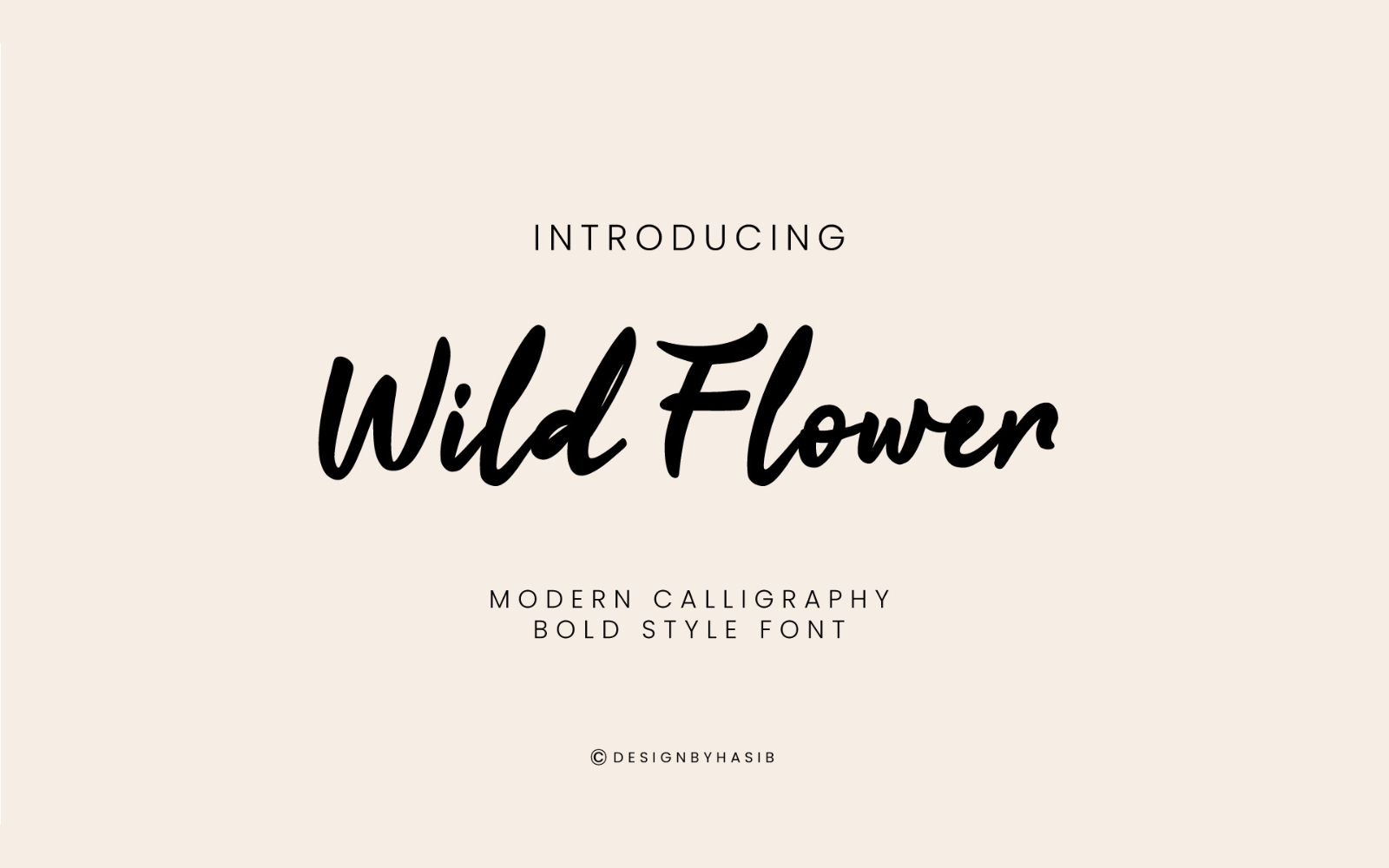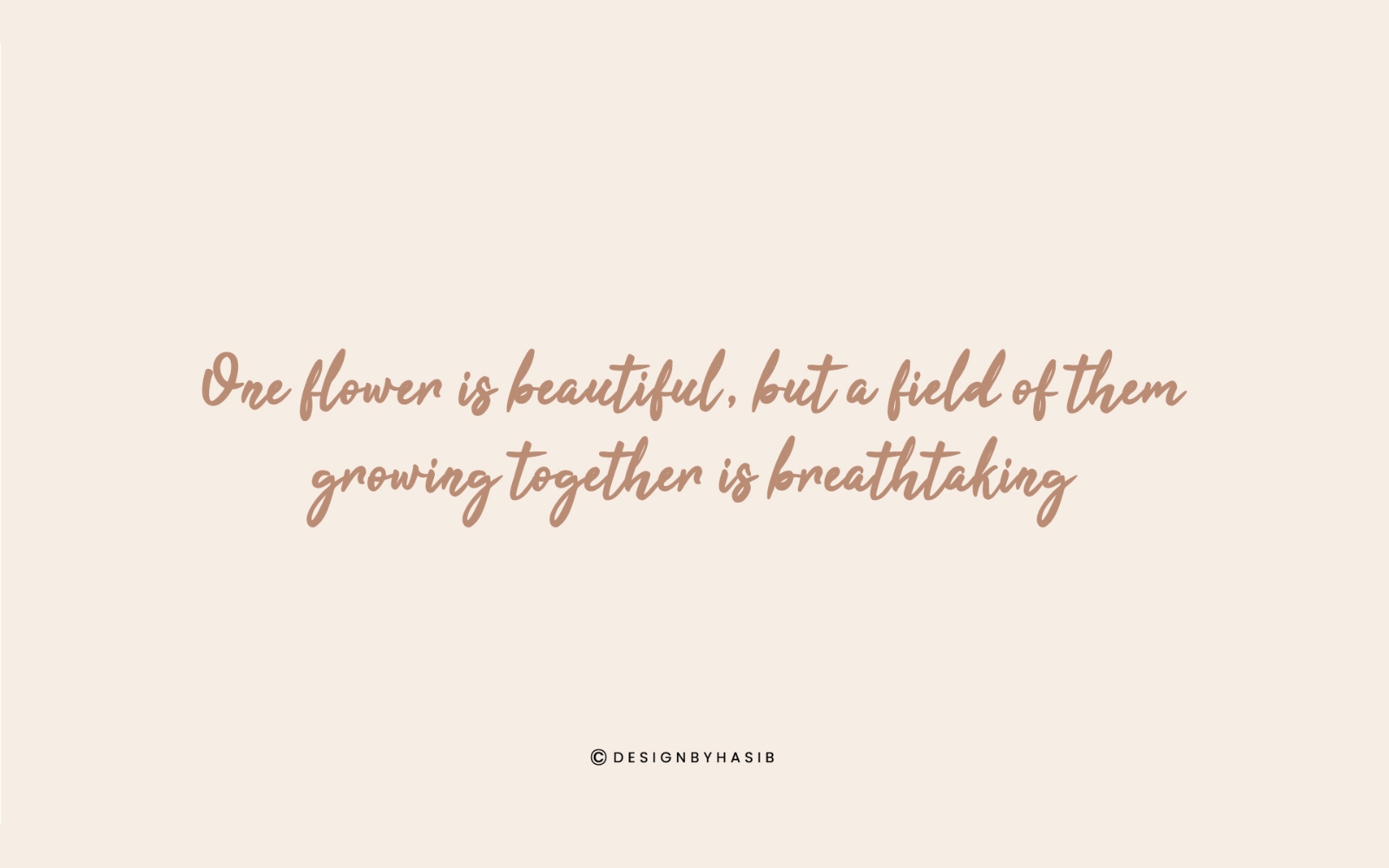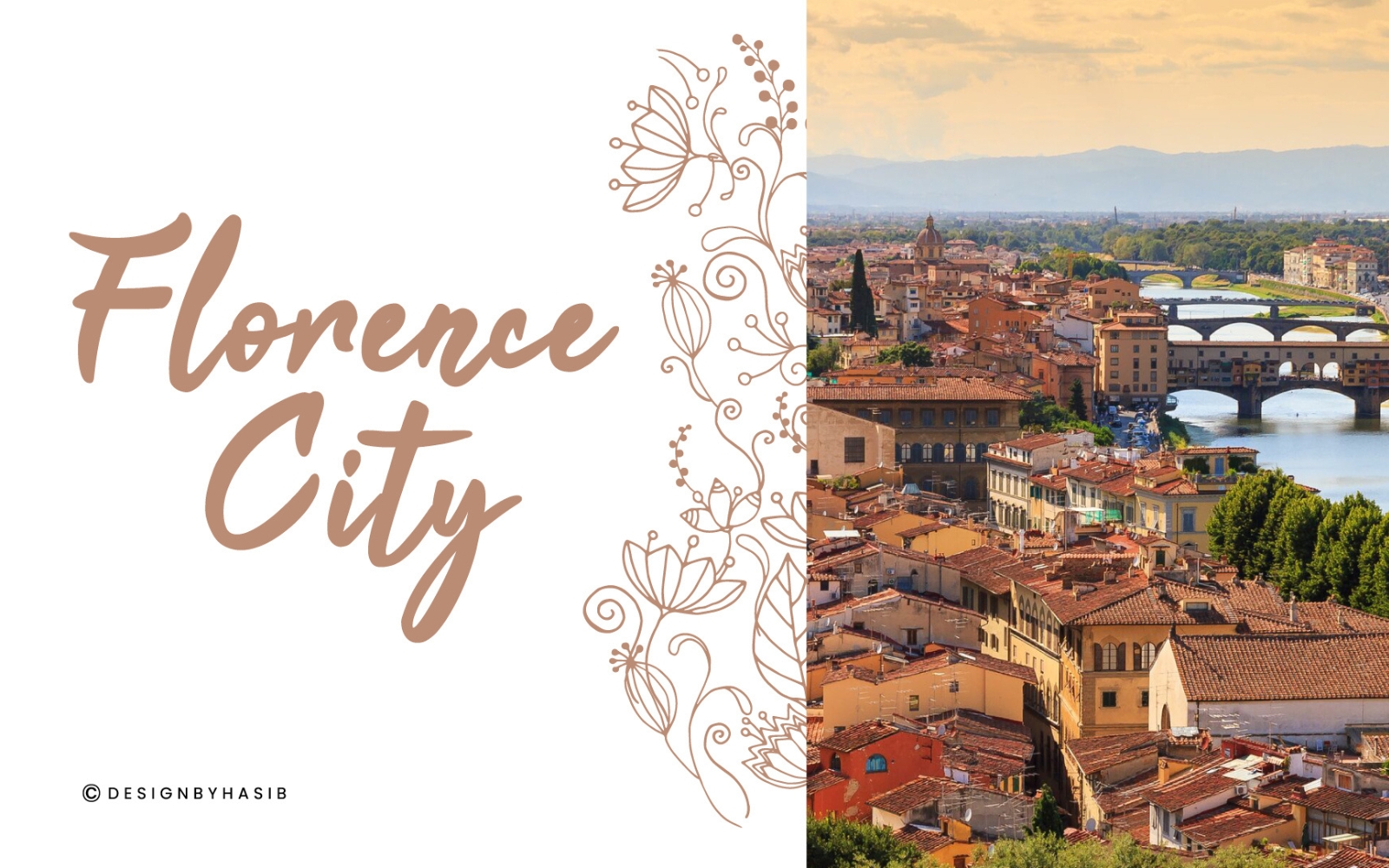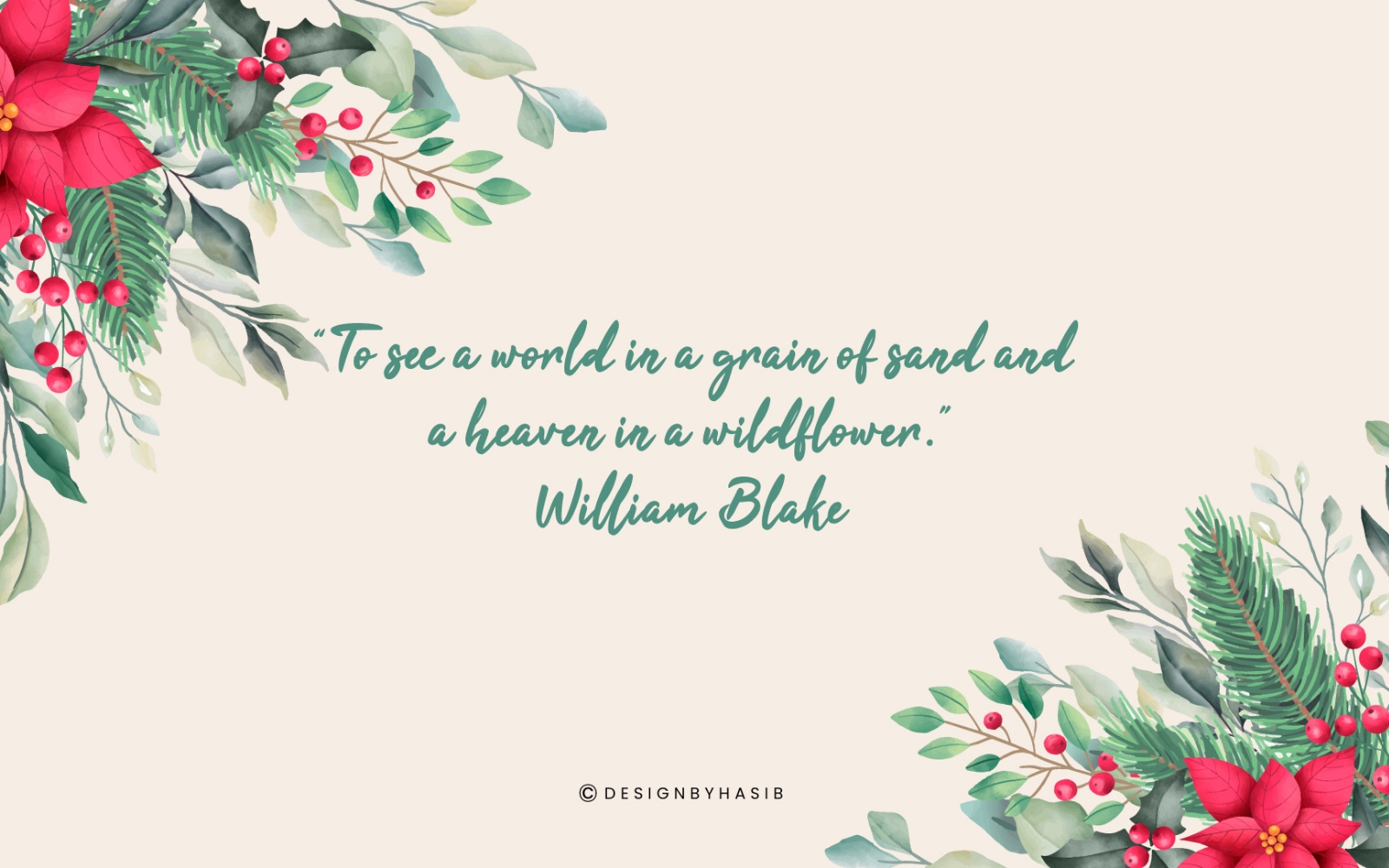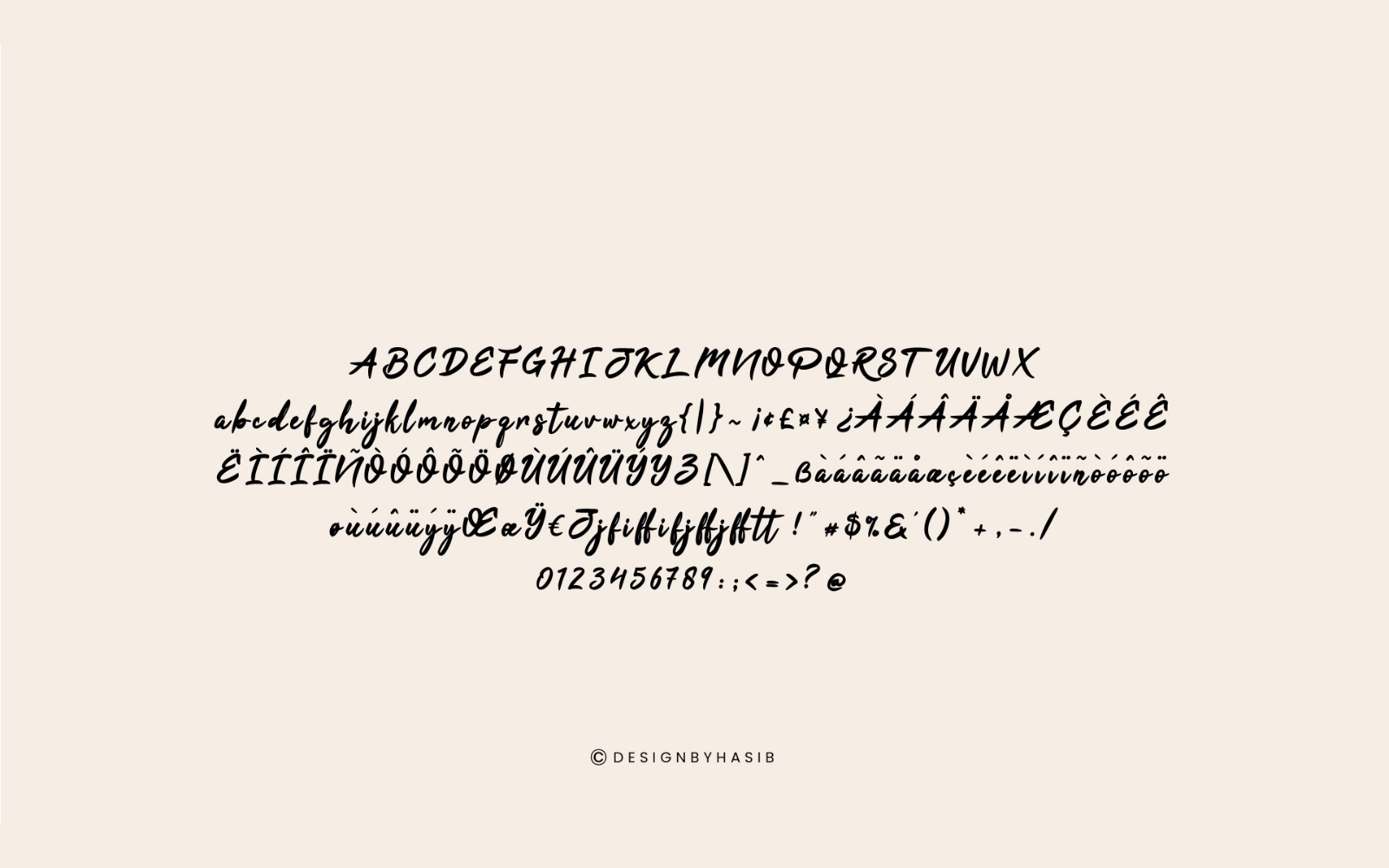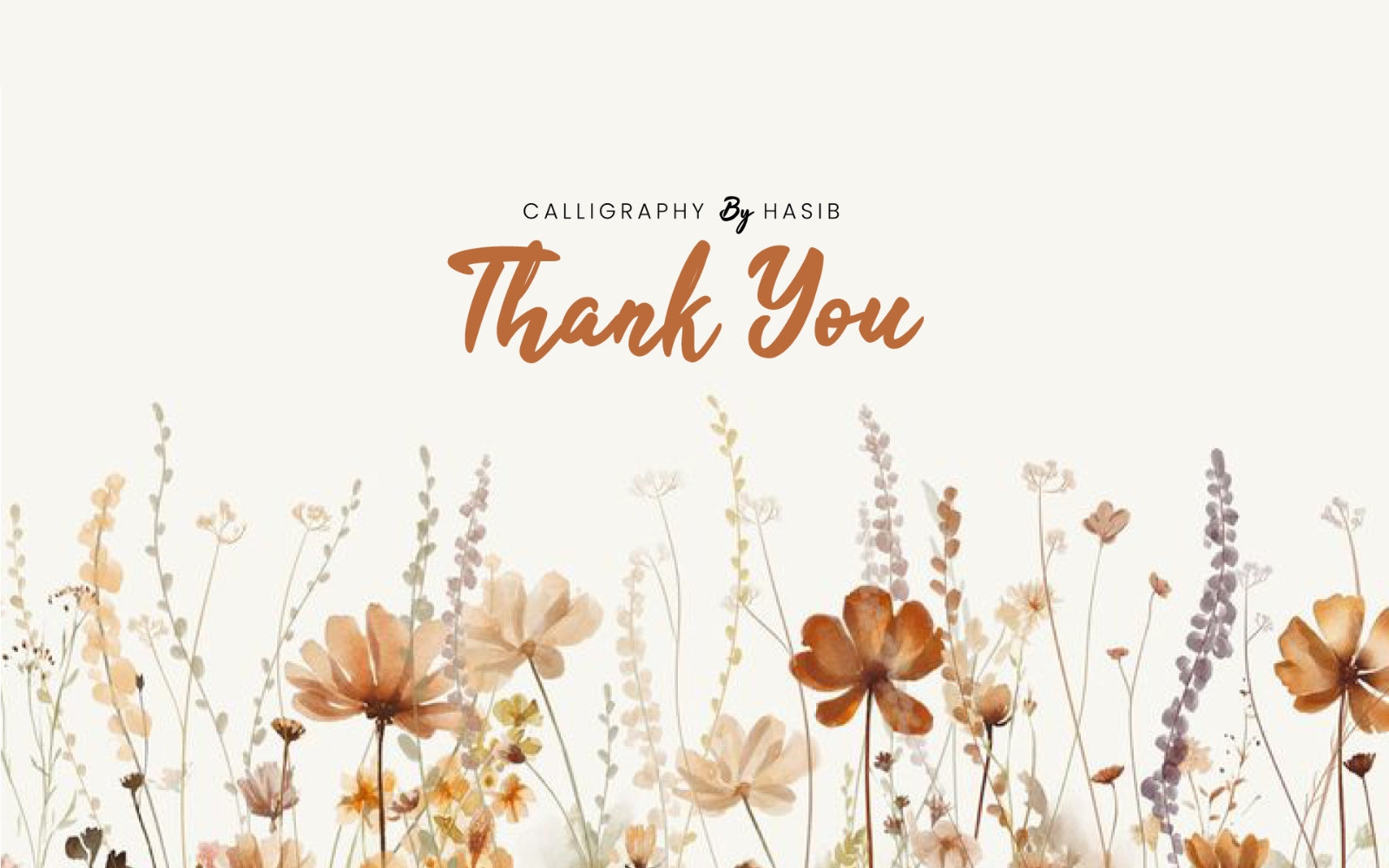
Wild Flower – Bold Modern Calligraphy Font
Wild Flower is a bold, modern calligraphy font that blooms with expressive charm and handwritten elegance. Designed for creatives who crave a blend of strength and style, this font brings a natural flow and a confident personality to every project.
Perfect for logos, wedding designs, social media graphics, quotes, packaging, and more, Wild Flower combines the spontaneity of hand lettering with bold brushstroke flair. Its smooth curves and lively vibe make it a standout choice for impactful, yet approachable designs.
Whether you're crafting heartfelt invitations or stylish brand identities, Wild Flower will help your words blossom with beauty and boldness.
Let your designs grow wild and free with Wild Flower – where bold meets beautiful.